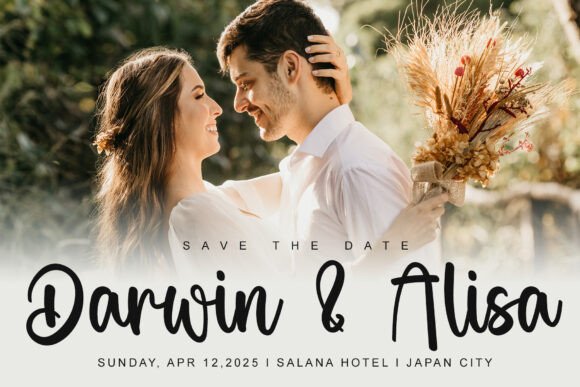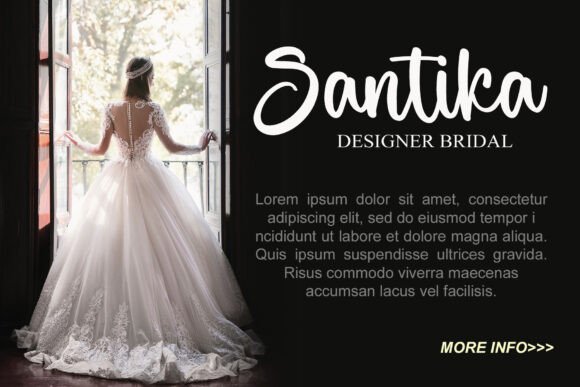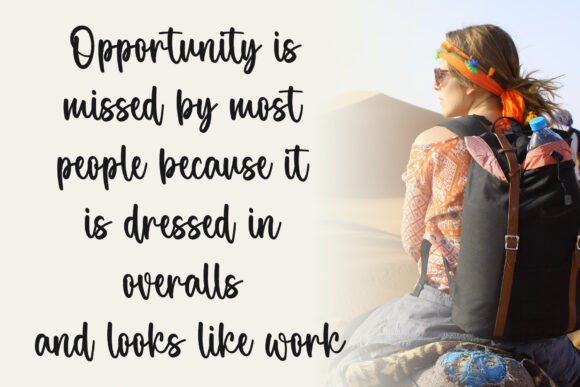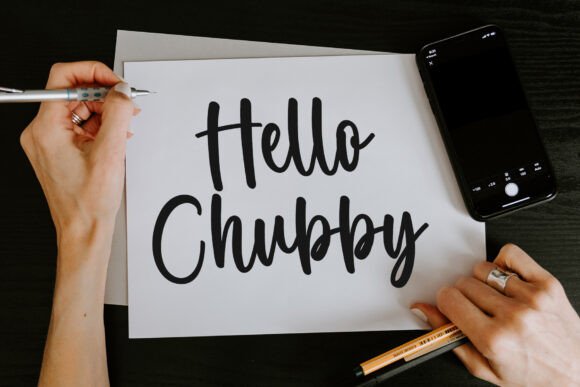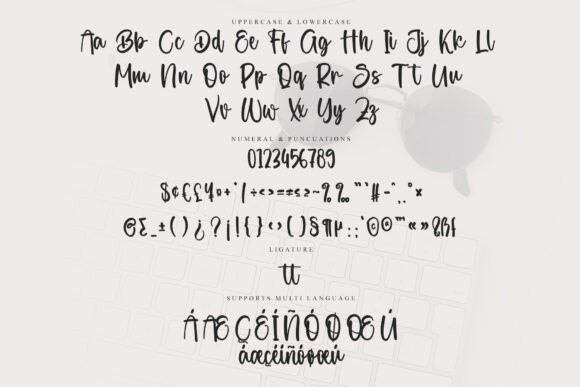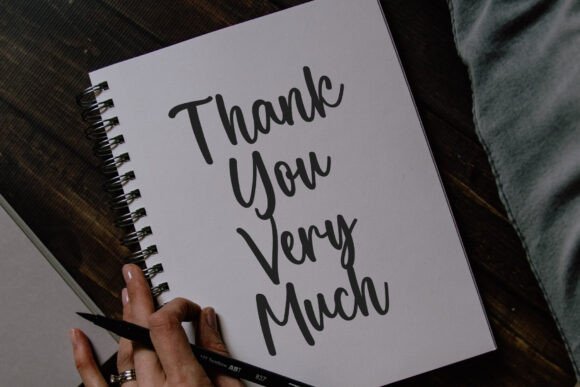
The Ultimate Playful Touch: Unveiling the Baby Sister Font
Have you ever found yourself doodling in a notebook, lost in the creative moment, and suddenly, a quirky, handwritten design sparks your imagination? That’s exactly the kind of magic the Baby Sister Font brings to the table. This charming font combines the organic feel of handwritten strokes with a bold and playful display style, making it the perfect addition to any creative project.
As a designer, you’re always on the lookout for the perfect font to elevate your work. That’s where the Baby Sister Font comes in – its smooth curves, artistic flair, and charming personality make it a valuable asset for any design project. Whether you’re working on a whimsical, casual, or stylish look, the Baby Sister Font delivers a truly remarkable design experience that’s sure to impress.
Baby Sister Font Key Features
- Font Family: Baby Sister Font is a script font family designed to resemble handwritten text.
- Unique Characteristics: Baby Sister Font features a whimsical, childlike feel with connected letters and subtle flourishes, making it ideal for creative projects.
Baby Sister Font Review
Overall, I think the Baby Sister Font is a great choice for designers looking for a friendly and approachable feel. ✨ The font’s rounded edges and soft curves make it perfect for children’s books, nursery decor, and other projects where a sweet and gentle tone is desired.
The font comes in a variety of weights and styles, allowing designers to mix and match to create a unique look. ✨ I particularly like the bold and italic options, which add a fun and playful touch to text.
- ⚠️ Limited character set: The font only includes a basic set of characters, which may not be suitable for longer texts or more complex projects.
- ⚠️ Not suitable for large blocks of text: The font’s rounded edges and soft curves can make it difficult to read large blocks of text, particularly at smaller font sizes.
- ⚠️ Limited customization options: While the font comes in various weights and styles, there are limited options for customizing the font’s appearance.
Overall, I think the Baby Sister Font is a great choice for designers looking for a fun and playful font. While it may have some limitations, its friendly and approachable feel makes it a great addition to any project.
For the best results, use Baby Sister Font in combination with other playful, cursive fonts. Experiment with different font sizes and colors to create a visually appealing design. Consider using the font in a title or heading to add a touch of whimsy to your design.
Baby Sister Font is commonly used in designs for children’s products, nursery decor, and baby-themed parties. It’s also a popular choice for creating a playful, whimsical atmosphere in designs for food, fashion, and lifestyle brands.